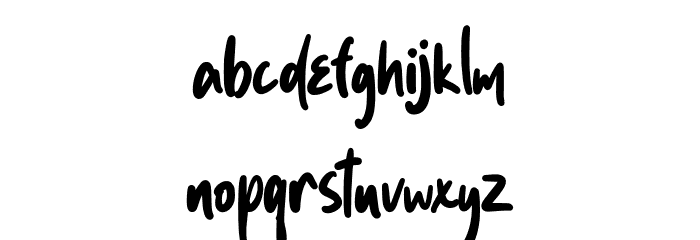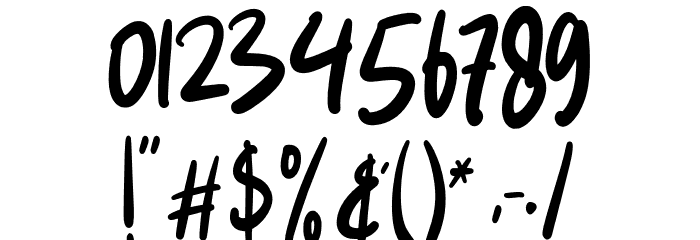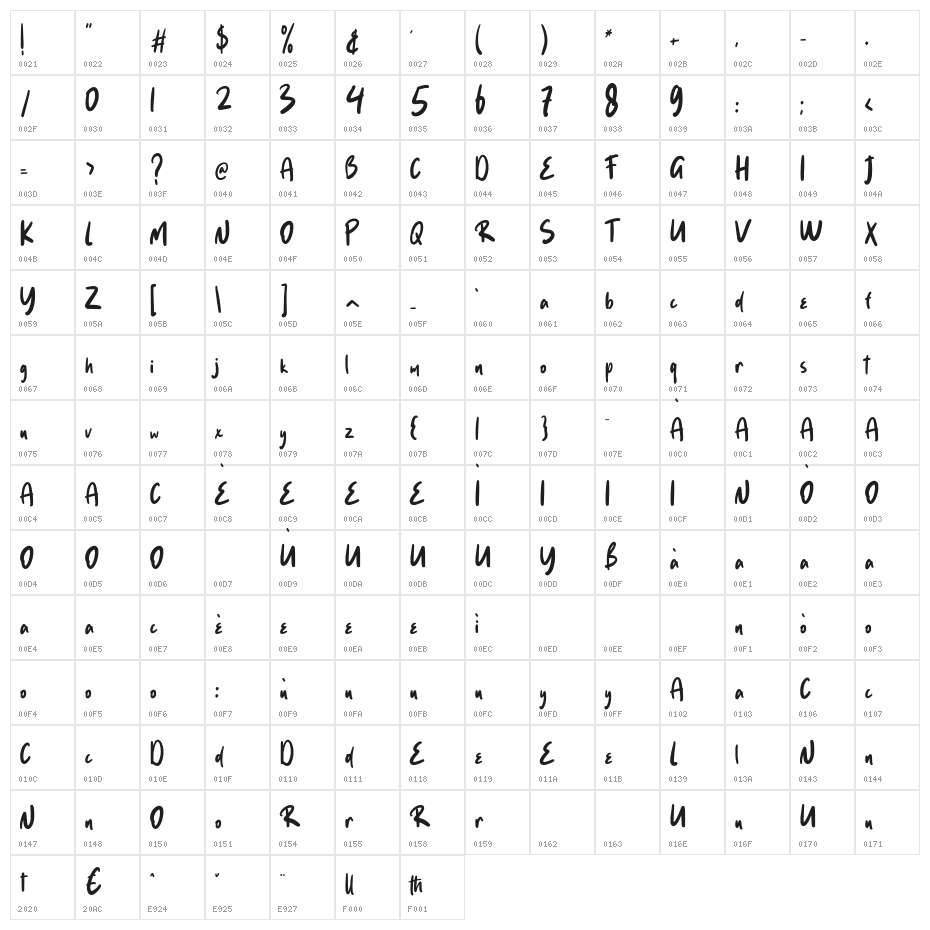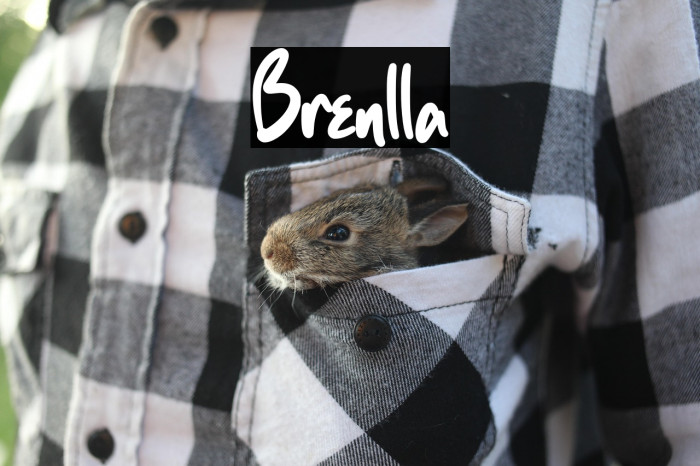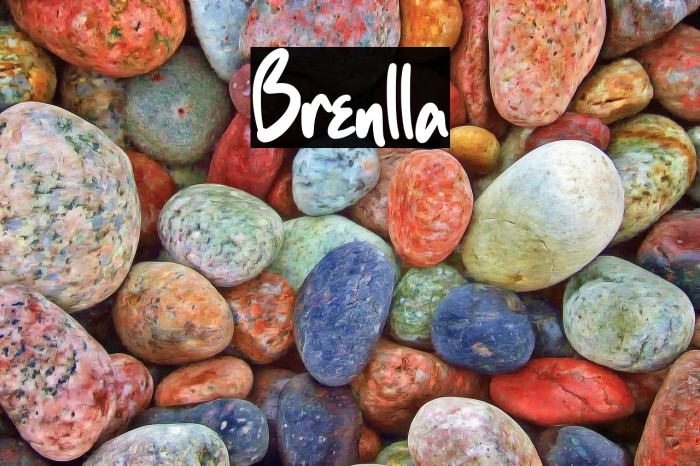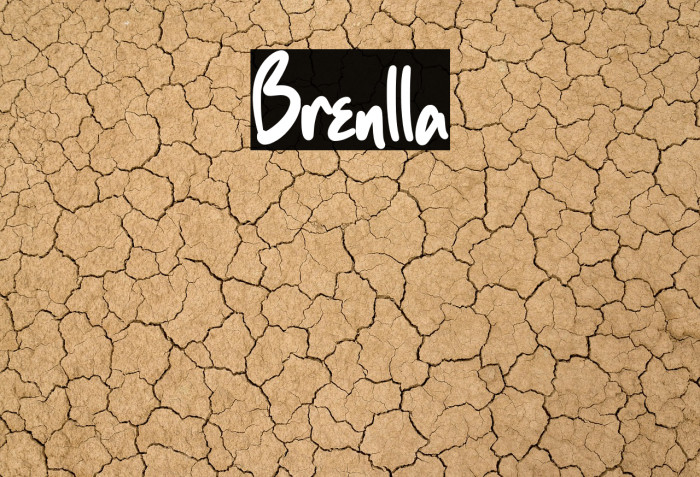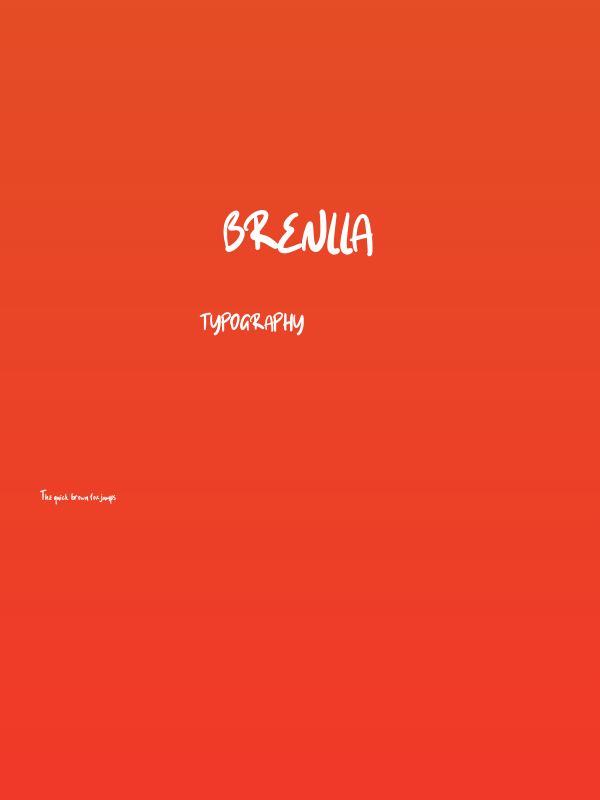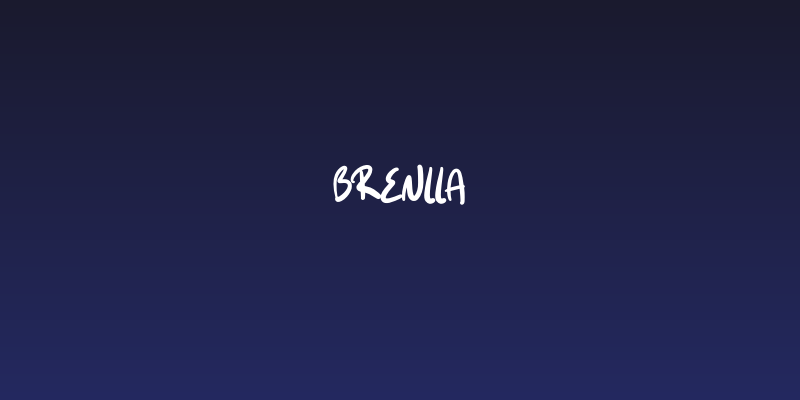
Brenlla Font
This font exudes a playful and energetic vibe, characterized by its bold, handwritten style. The letters are slightly slanted, giving a dynamic and informal feel. The strokes are thick and consistent, with rounded edges that add a friendly touch. The uppercase and lowercase letters maintain a cohesive look, while the numerals and special characters are crafted with the same lively spirit. This font is ideal for projects that require a personal and approachable tone, such as children's books, casual branding, or creative posters.
- Proposed Projects: Children's books, casual branding, creative posters, social media graphics.
- Overall Style: Playful